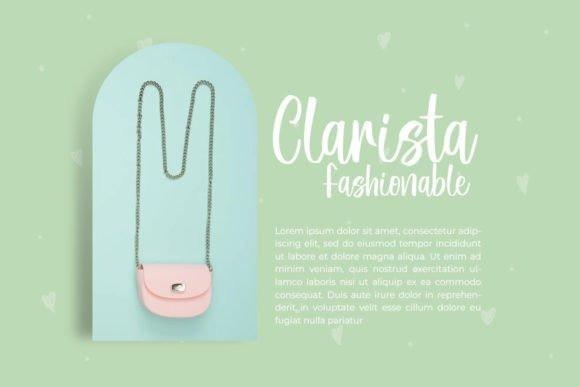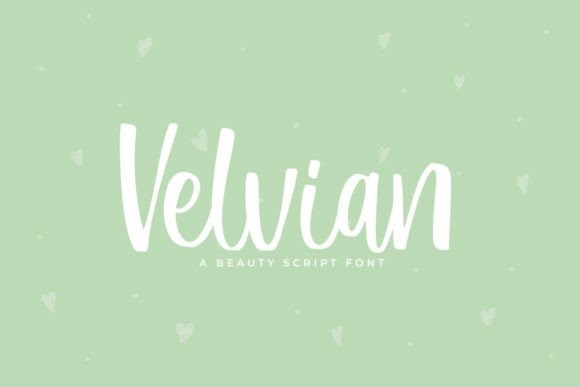
Velvian Font
Velvian Script Font is a fresh and beauty script font with a lovely twist. Get inspired by its playful and delicate vibe, and turn any design project into a stunner.